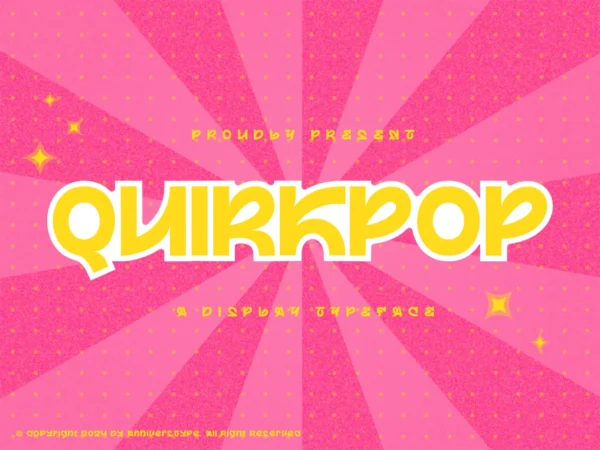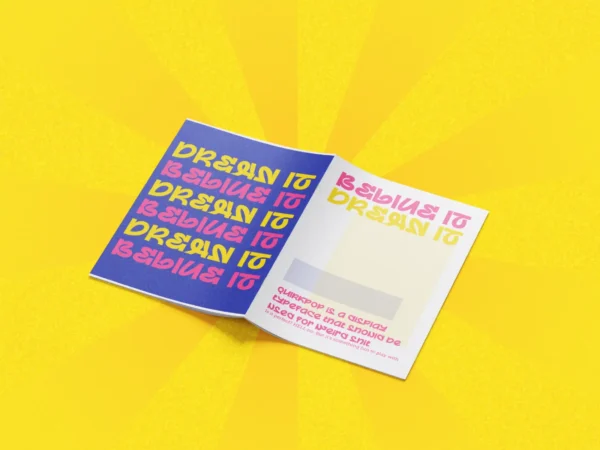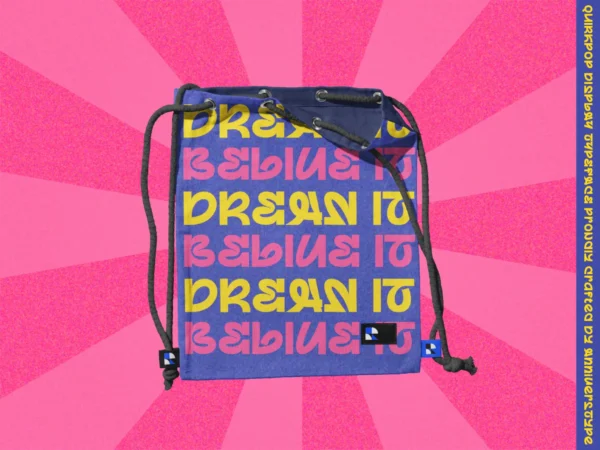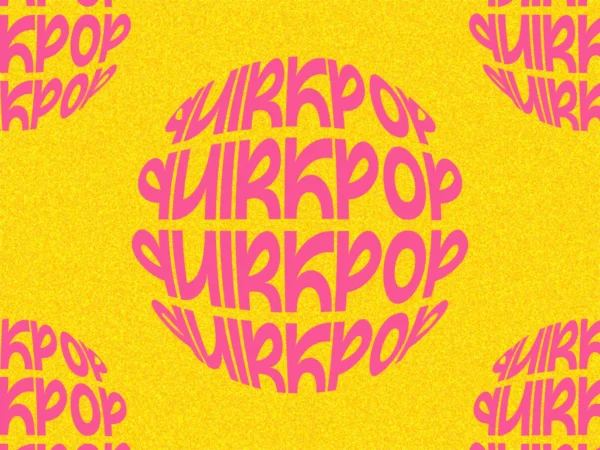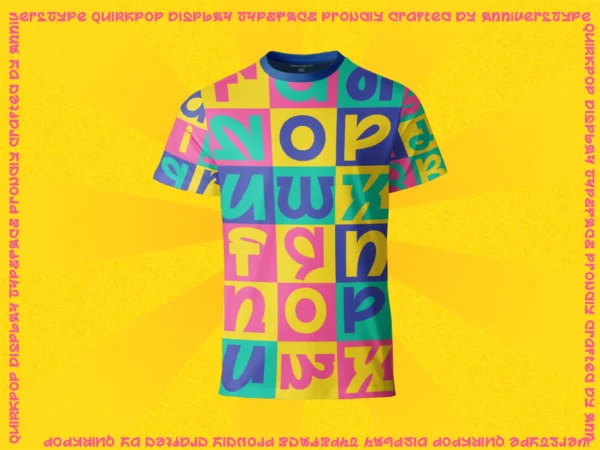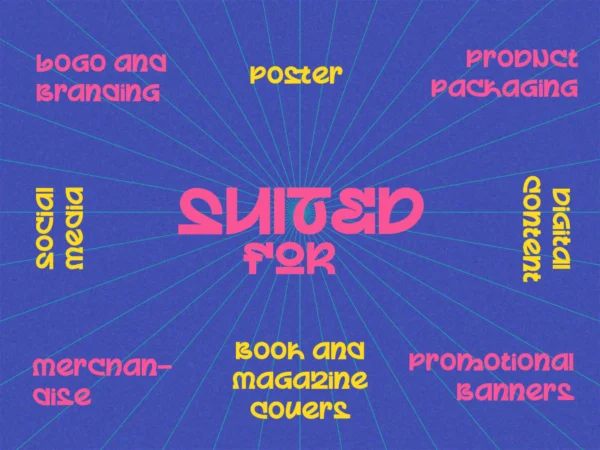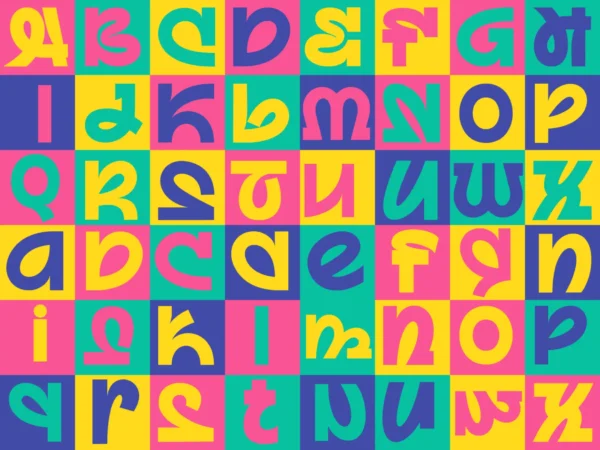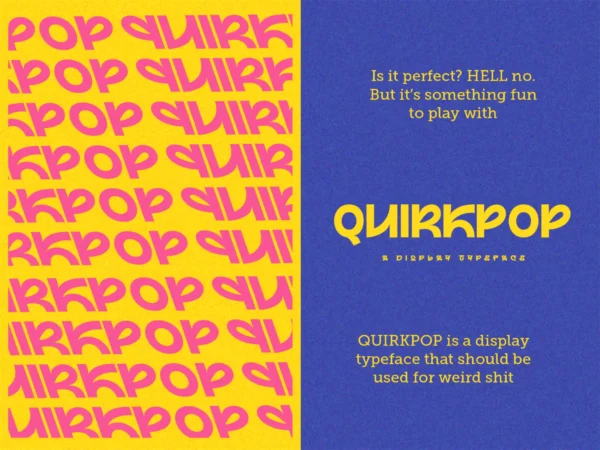
Quirkpop Display Typeface Font
Quirkpop is a display typeface that infuses any project with a vibrant blend of retro appeal and pop-art energy. It’s crafted for designs that require a bold and memorable presence.
The versatility of Quirkpop makes it an excellent choice for eye-catching promotional materials like posters, banners, and event announcements. It also injects personality into merchandise such as t-shirts, tote bags, and other fashion pieces. For branding purposes, it’s a perfect match for logos with a playful or vintage identity, and it excels on book and magazine covers channeling an 80s or 90s aesthetic. Use Quirkpop to create dynamic product packaging, engaging social media graphics, and stylish invitations aimed at capturing the attention of a young, fashion-forward demographic.
Features:
- A complete set of uppercase and lowercase characters
- Includes numerals and a full range of punctuation
- Equipped with OpenType features like ligatures and alternates
- Provides support for multiple languages